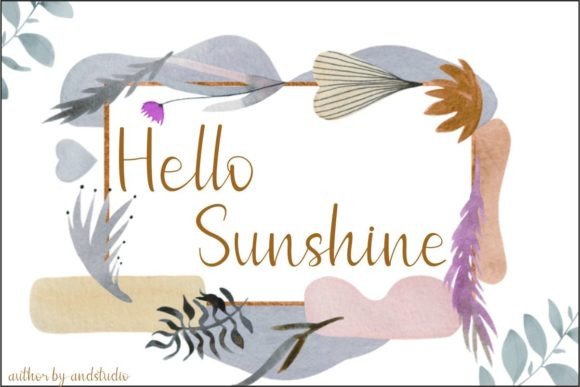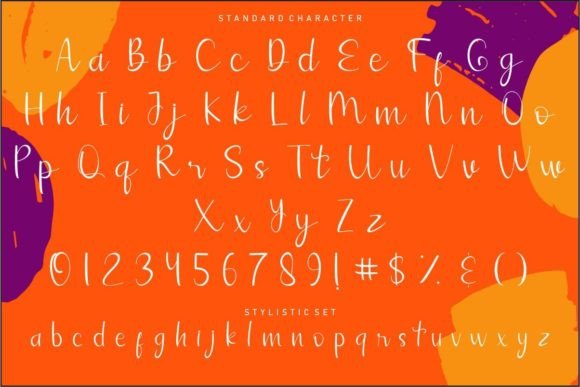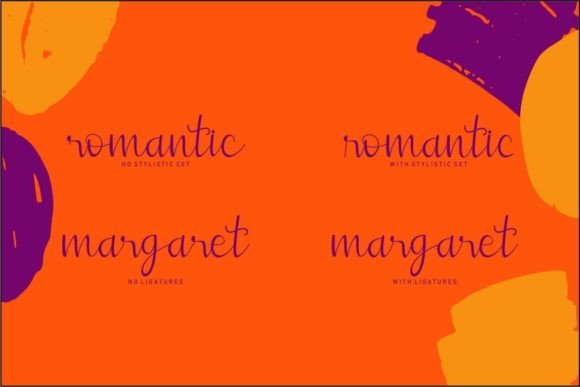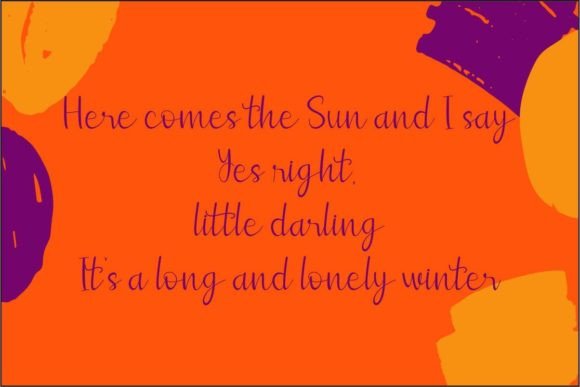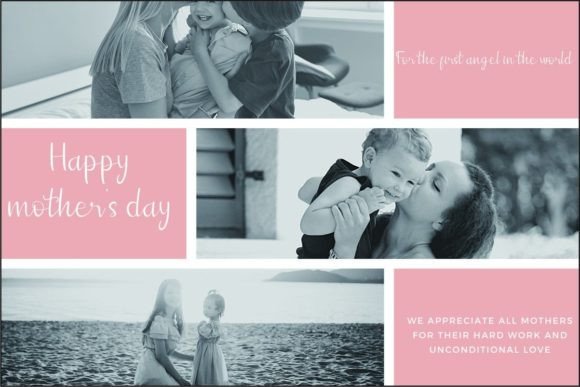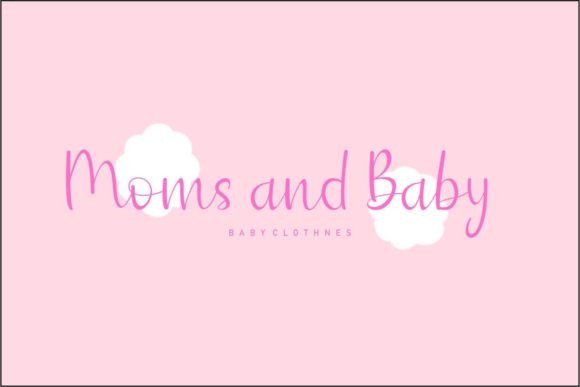
Introducing “Hello Sunshine,” a delightful and beautiful modern script font that brings a touch of sweetness to your design projects. With characters dancing gracefully along a baseline, this font is more than just a typeface—it’s a celebration of elegance and charm.
“Hello Sunshine” is designed to infuse a sense of luxury into your creations. Whether you’re working on invitations, branding, packaging, or any design that calls for a dash of sophistication, this font promises to elevate your project with its stylish and modern script.
The unique feature of characters dancing along a baseline gives “Hello Sunshine” a dynamic and playful quality, adding a sense of movement to your text. It’s not just a font; it’s a visual dance that transforms your words into an artistic expression.
But the beauty of “Hello Sunshine” extends beyond its aesthetics. With PUA encoding, accessing the wide array of glyphs and swashes becomes a breeze. This feature provides you with the flexibility to personalize and embellish your designs, ensuring that your creative vision is fully realized.
Whether you’re creating a wedding invitation that radiates romance or a logo that exudes modern luxury, “Hello Sunshine” is your versatile companion. Its fluid script and engaging baseline make it suitable for a variety of applications, allowing you to explore different creative avenues with ease.
In conclusion, “Hello Sunshine” is not just a font choice; it’s an invitation to infuse your projects with a sweet and beautiful touch. Try it today, and witness how it transforms your designs into visual masterpieces. Let the dancing characters and luxurious script of “Hello Sunshine” add a splash of charm and sophistication to your creative journey.